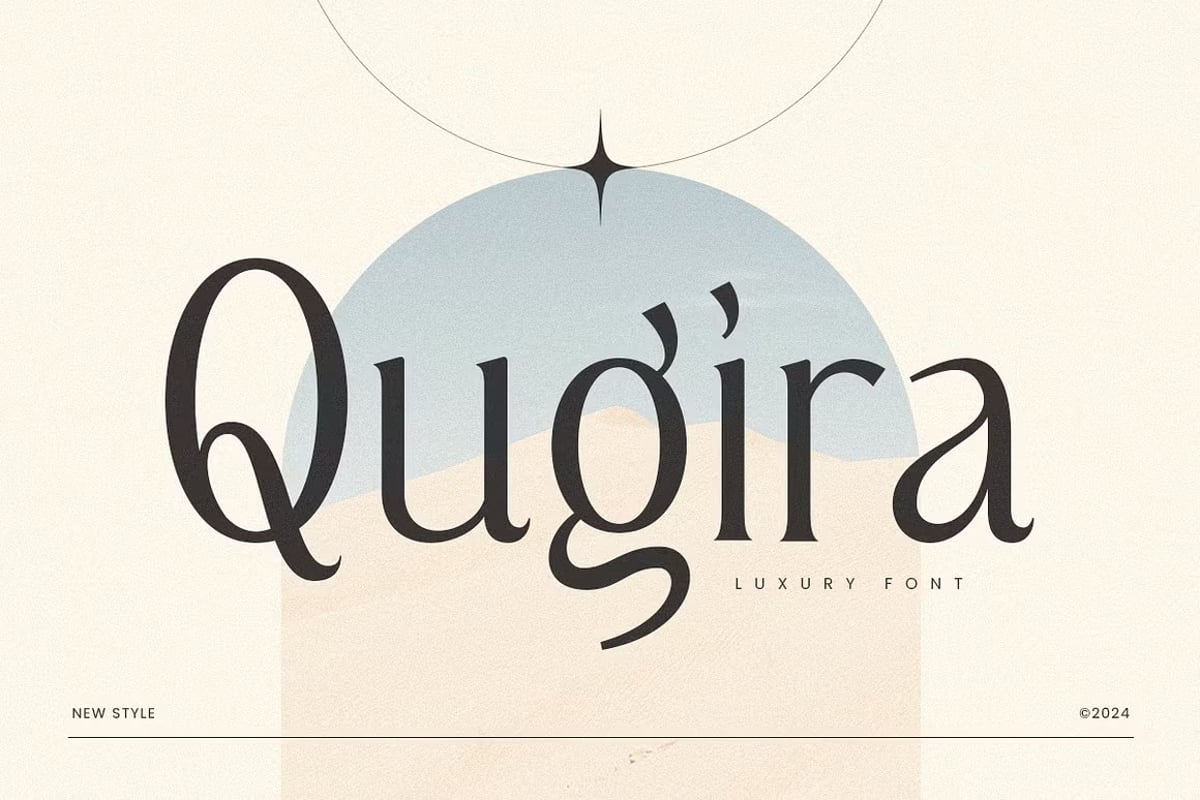
Qugira Luxury Font
Elevate your brand with this exclusive luxury serif font designed for sophisticated modern branding. Crafted specifically for designers and brand owners seeking stylish, contemporary solutions, this elegant typeface enhances your brand's allure and perceived value. The font features distinctive alternates and an array of bohemian-inspired characters that unlock endless creative possibilities for unique, sophisticated designs. What's Included: 4 Format File types (OTF/TTF/WOFF/WOFF2) Unique Chara...